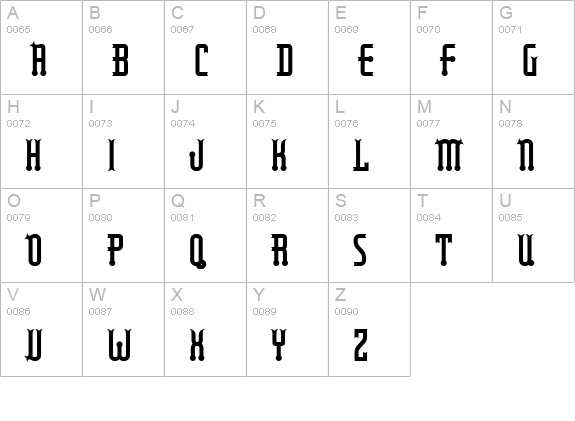
RubaiyatSolid Font Details
RubaiyatSolid font is a beautifully crafted typeface that exudes elegance and sophistication. With its clean lines and classic design, this font is perfect for a wide range of projects, from branding to editorial design. The timeless appeal of RubaiyatSolid font makes it a versatile choice for any designer looking to add a touch of refinement to their work. The best part? RubaiyatSolid font is available for free download at FontsMarket.com. This means you can easily access this stunning font and incorporate it into your projects without any cost. Don't miss out on the opportunity to enhance your designs with the timeless beauty of RubaiyatSolid font, now just a click away at FontsMarket.com.